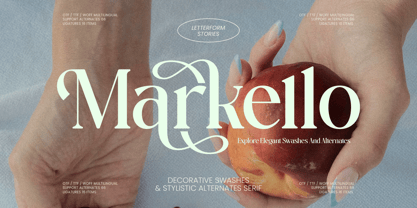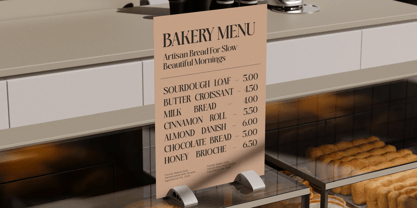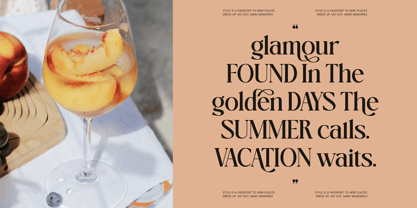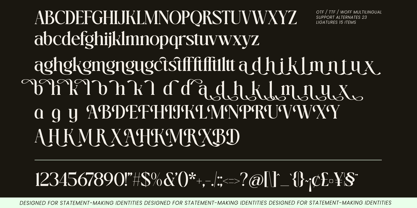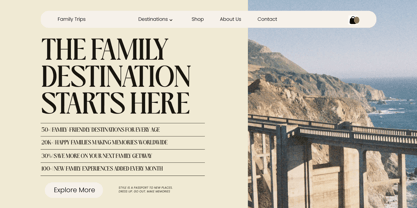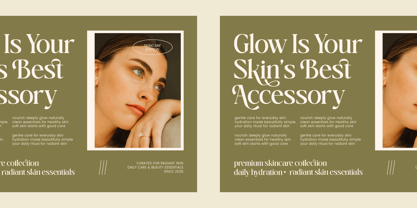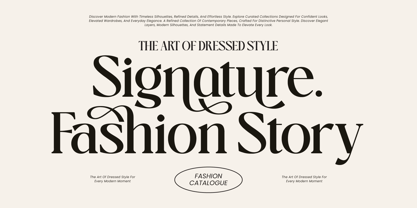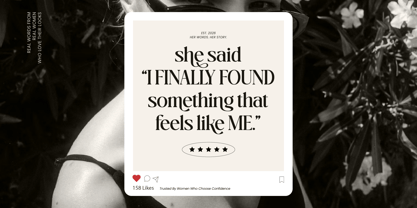
Markello
von Amorfa Type
Die Schriftfamilie Markello wurde von Shiddiq Roihan entworfen und von Amorfa Type veröffentlicht. Markello enthält 2 Stile und Familienpaketoptionen. Mehr über diese Familie
Markello is a decorative serif typeface designed with elegant swashes, refined contrast, and expressive stylistic alternates that bring sophistication and personality to every composition. Blending timeless serif elegance with contemporary editorial aesthetics, Markello delivers a luxurious visual presence perfect for high-end branding and statement typography.
🔡 OpenType Features: 66 Alternates & 16 Ligatures
✏️ Total Glyphs: 376 Characters
🌍 Multilingual Support – Extended Latin character set included
Designer: Shiddiq Roihan
Foundry: Amorfa Type